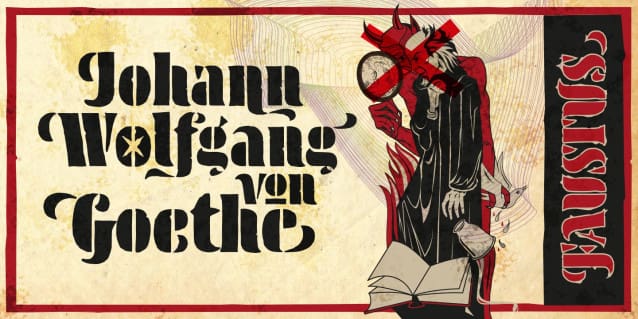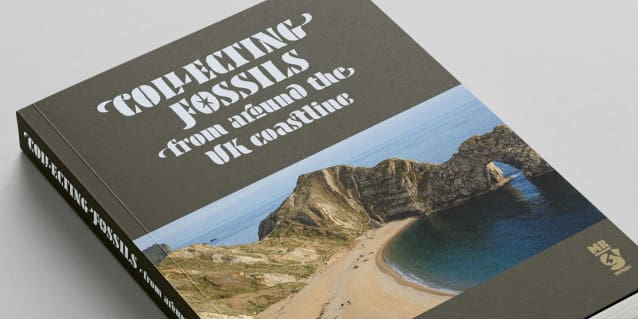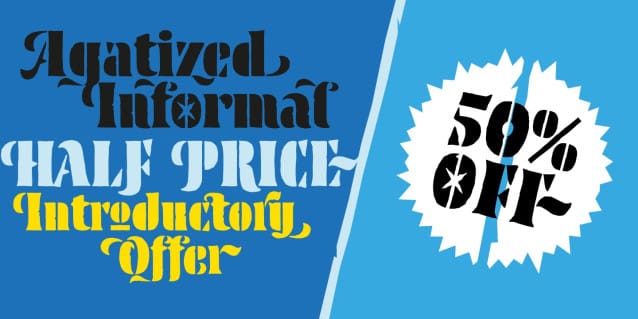
Agatized Informal Font
Agatized Informal Font is a rough-edged stencil typeface with chunky letterforms and tight spacing. Designed primarily for display use, it’s ideal for posters, logos, advertising, book cover designs or small chunks of text such as pull-out quotes.
The design is something of an enigma, a curious mish-mash of genres – imagine splicing Uncle Buck and Deadpool into a horror movie – it’s big, bold and funny although has a dark side.
But what really makes this typeface a joy to drive is its boot full of alternative characters and ligatures. There is a saying: Use sparingly. Not on this street! Make your Glyphs palette burn rubber. Set your OpenType to full throttle: crank up your style and get those liga-tyres screeching. Agatized Informal is a souped-up old campervan spinning doughnuts on the beach.
The design started life as a piece of lettering for a book design that didn’t progress past the sketch stage. I liked the rough, dense character shapes, so during some down time I started drawing more characters and the lure of a new typeface pulled me in from there.
Although this is a single-weight typeface it has a younger sibling, Agatized Formal, a neater, more dapper brother, smoother round the chops and smartly dressed – certainly no less fun though.